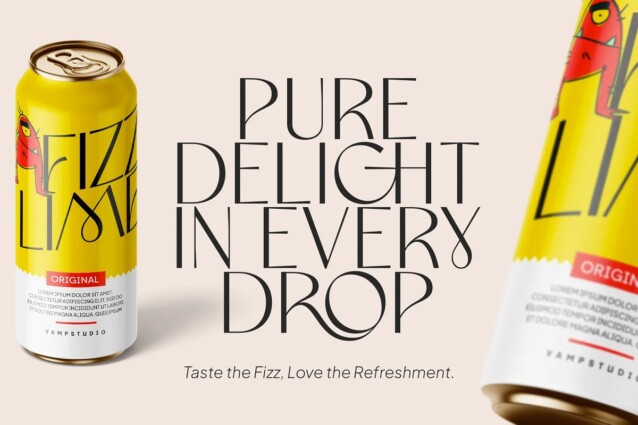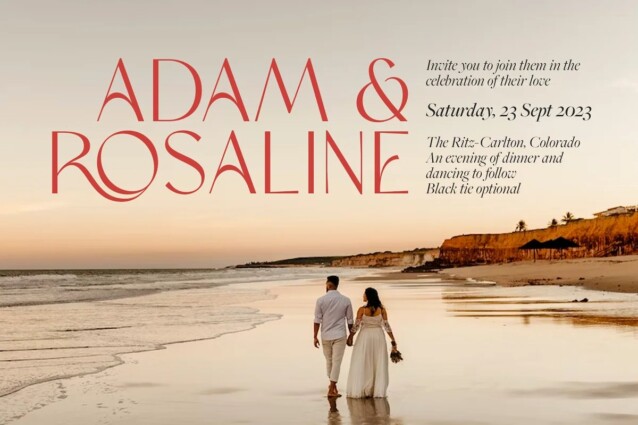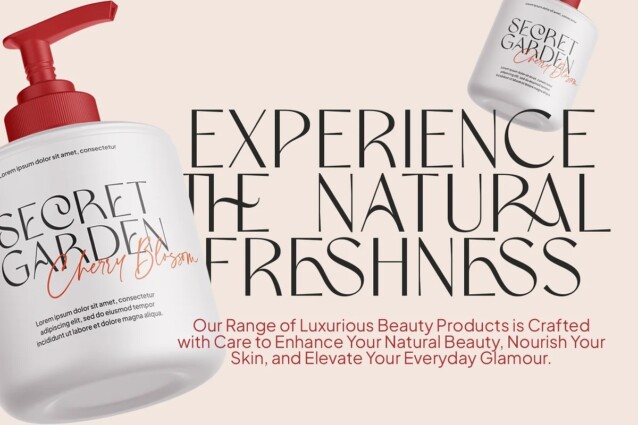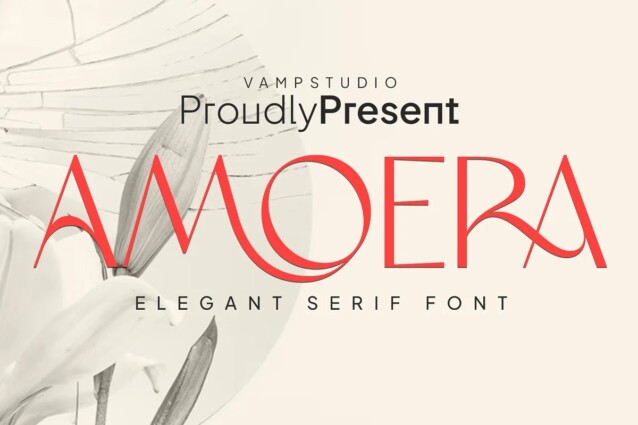
Amoera Font
Amoera Font is a modern & unique sans-serif font crafted & designed by Vampstudio. This font looks very simple, clean, and elegant. Specially designed by skilled hands makes this font is the perfect fit for all your big projects.
Amoera is perfect for branding projects, logo, wedding designs, social media posts, advertisements, product packaging, product designs, label, photography, watermark, invitation, stationery and any projects that need handwriting taste.